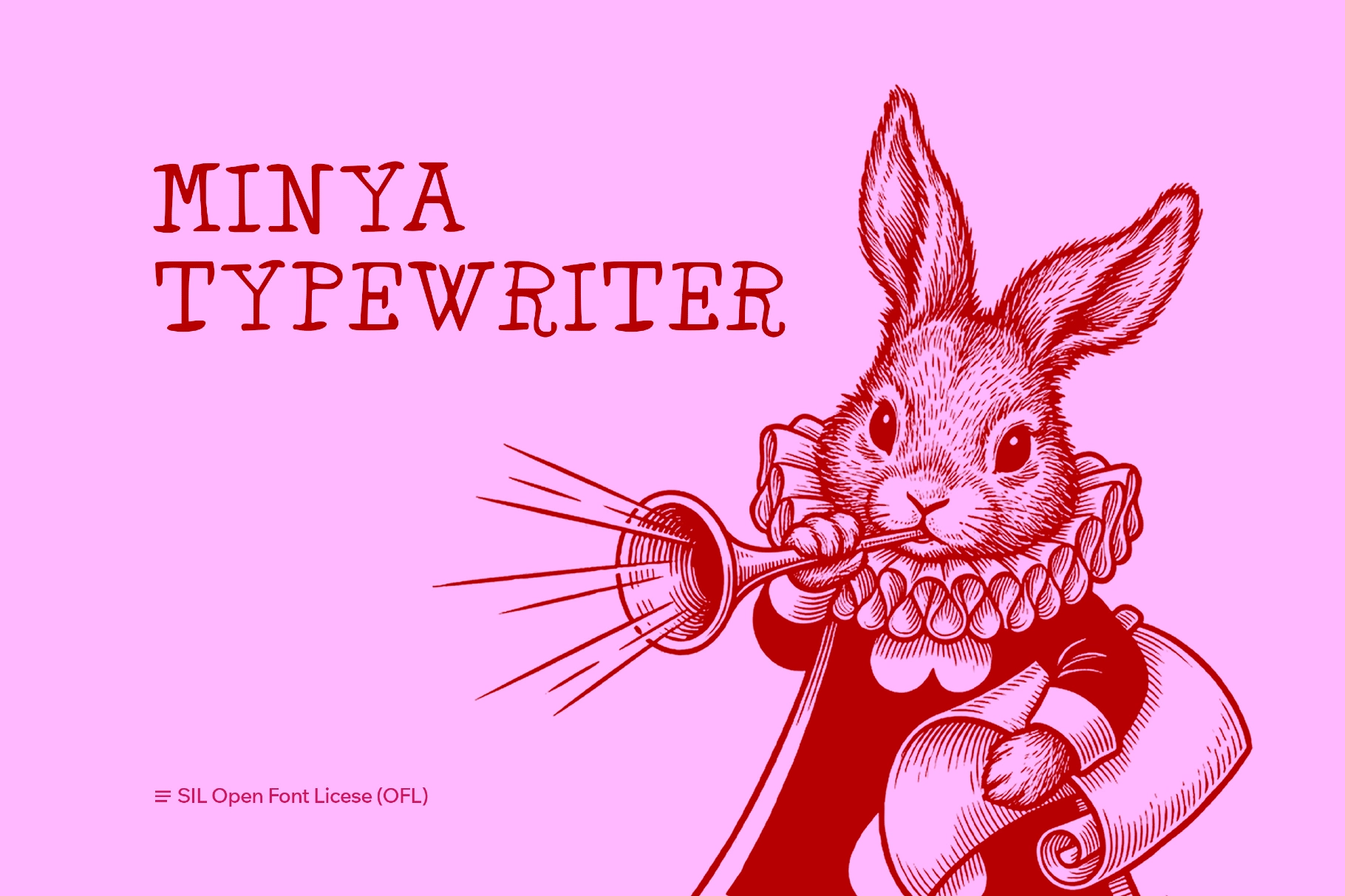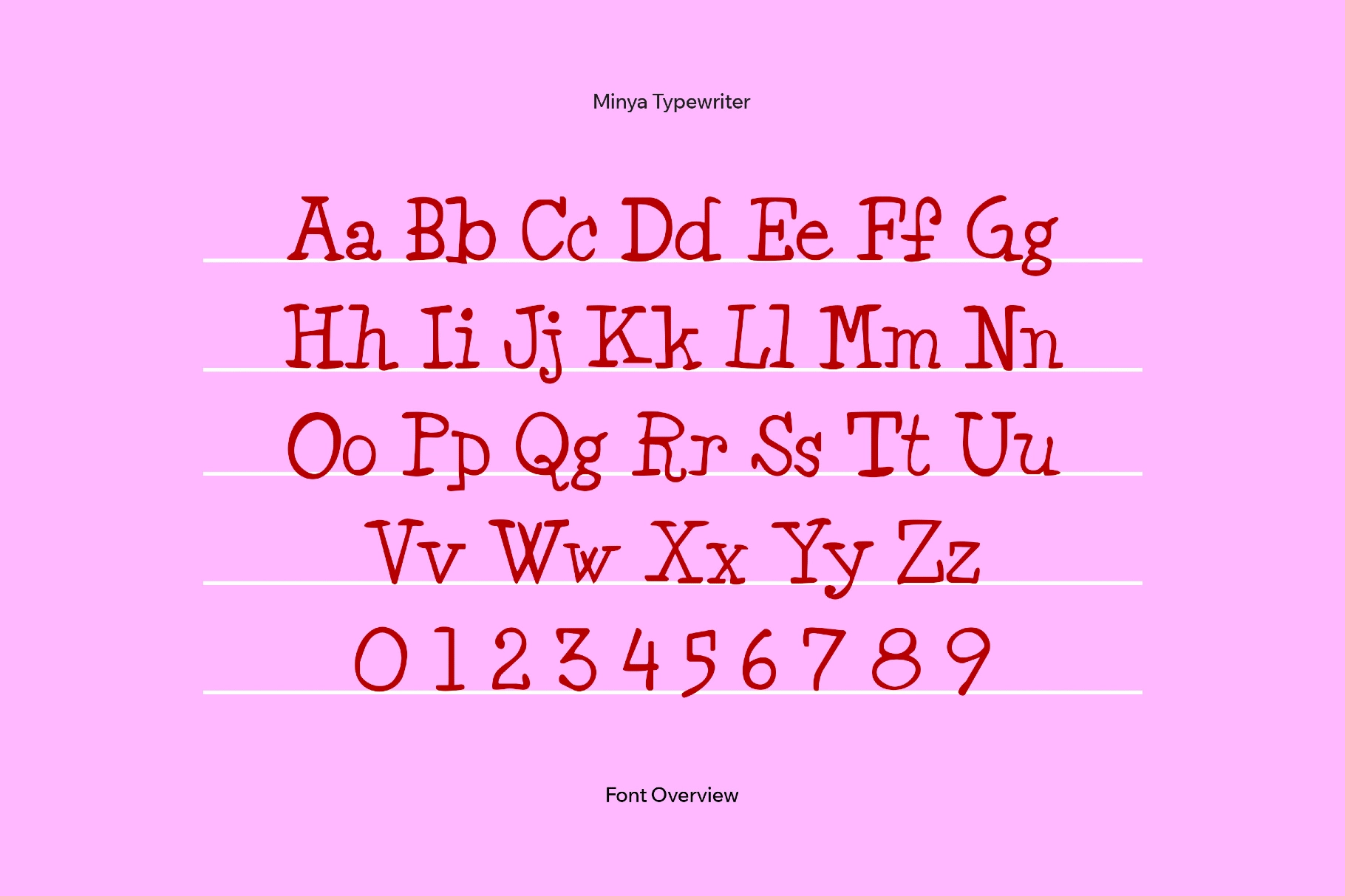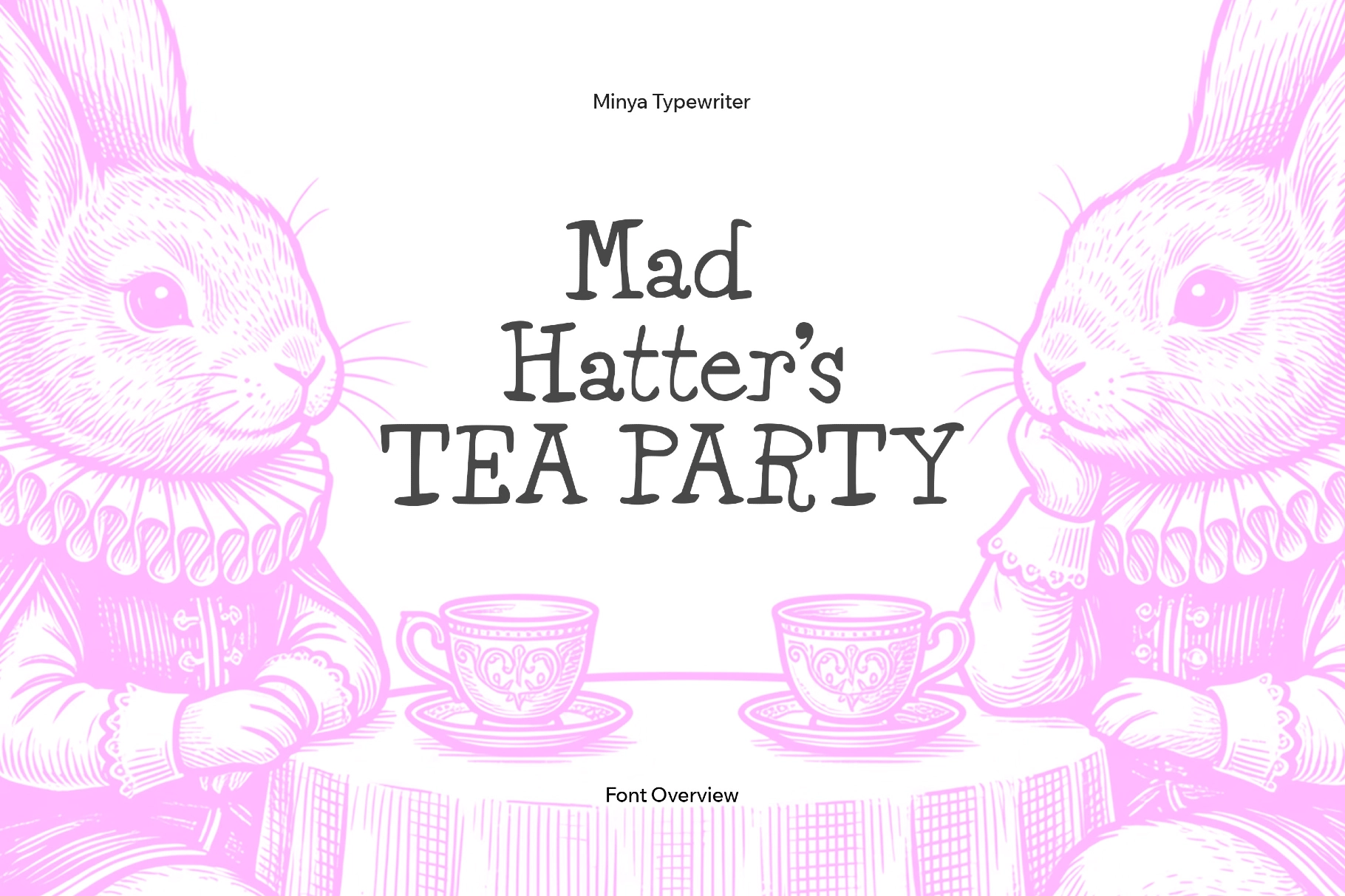
Minya Typewriter
Minya
Minya is like a hand-drawn serif with a storybook accent. Its true-to-life details — loose baselines, irregular curves, rounded terminals, looping joints, and slightly uneven strokes — sell it as a 100% lively and friendly piece. The lowercase leans tall and open, so paragraphs remain readable even when the copy runs long.
You can play as you like: use Minya for children’s books, cozy packaging, café menus, greeting cards, indie game interfaces, DIY labels or stickers.